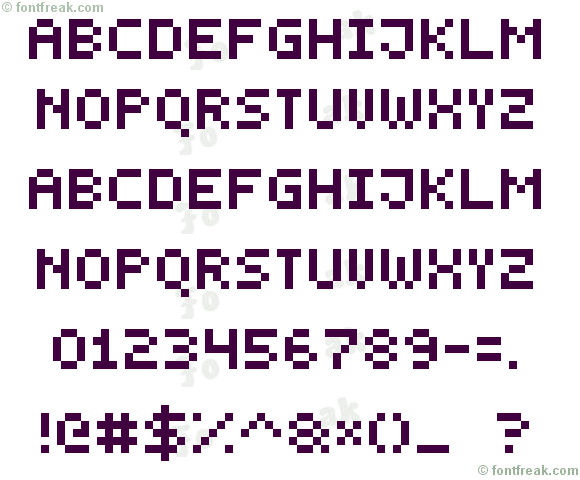
Smallest Pixel-7
The Smallest Pixel-7 font by Style-7 is a distinctive display typeface that captures the essence of retro digital aesthetics. As a pixel-based font, it showcases a unique character set that is reminiscent of early computer graphics, making it perfect for projects that aim to evoke nostalgia or a tech-savvy vibe. The font features a consistent stroke weight with minimal contrast, which enhances its pixelated appearance. The spacing between characters is tight, further emphasizing its digital origins and making it ideal for headlines or short texts that require attention.
This font excels in various applications, including video game graphics, retro-themed event flyers, and technology-related branding. It also works well for merchandise such as T-shirts or stickers aimed at gamers and tech enthusiasts. Additionally, Smallest Pixel-7 can be effectively utilized in website designs that focus on vintage aesthetics or digital art, making it a versatile choice for graphic designers and web developers.
Small business owners looking to create a unique identity for their tech-oriented products will find this font particularly appealing. Content creators who produce digital media or online content can also benefit from its eye-catching style, making their designs stand out in a crowded market.
What sets the Smallest Pixel-7 font apart is its ability to transport viewers back to the early days of computing while remaining relevant in contemporary design contexts. Its freeware license allows for easy access, making it an attractive option for anyone seeking to incorporate a pixelated style into their work. For those interested in exploring this font, a Smallest Pixel-7 font free download is readily available, inviting creativity and innovation in your design projects.